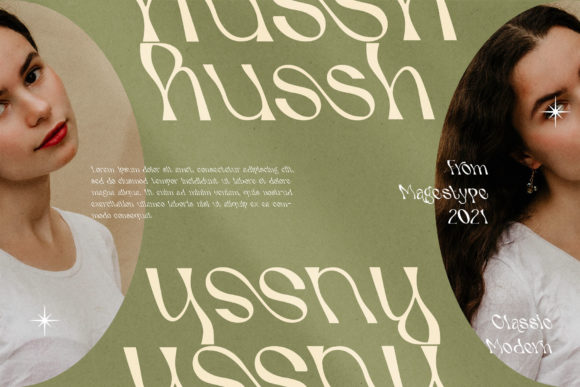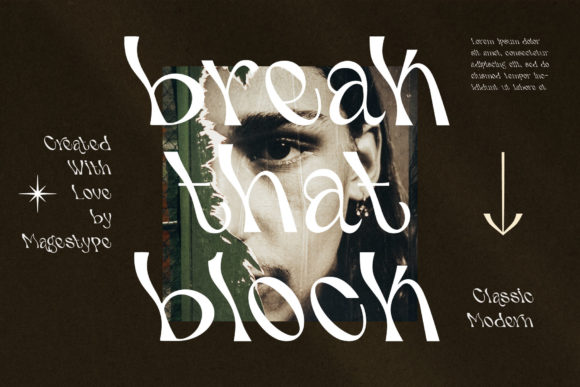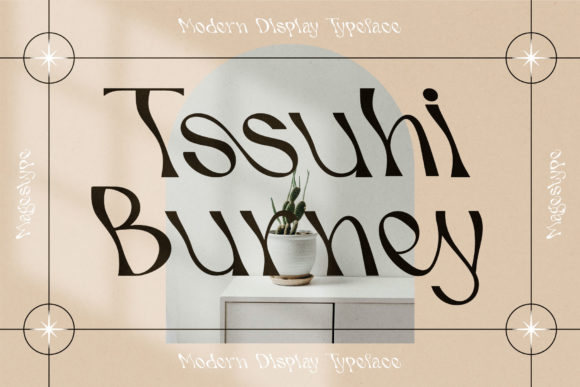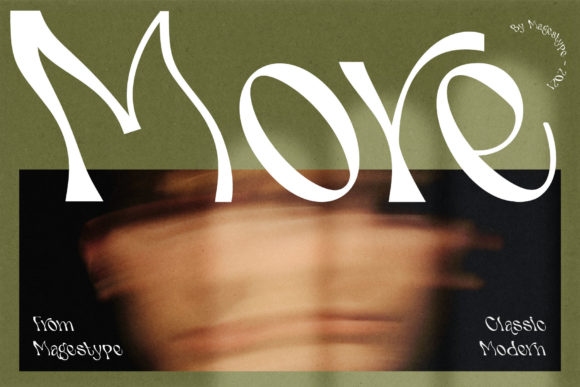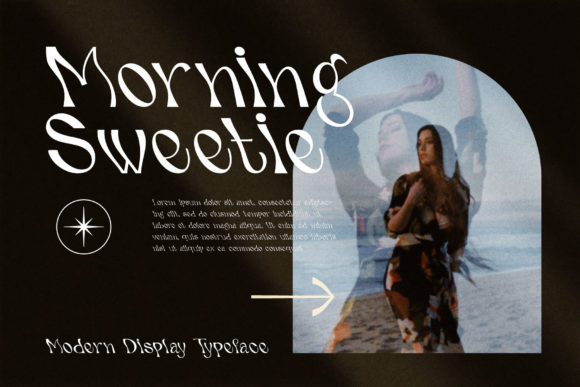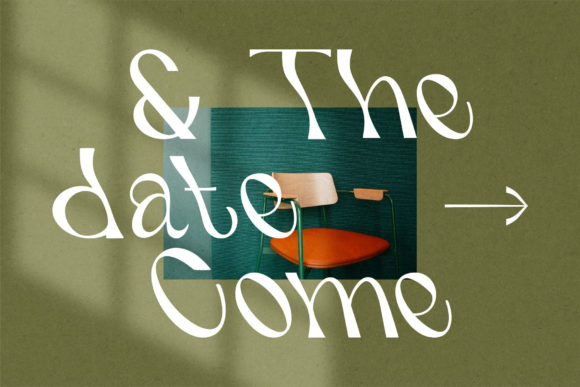
Introducing Heaney Font: Elevate Your Designs with Whimsy and Luxury
In the world of typography, fonts play a crucial role in conveying the tone and personality of a design. For designers and crafters looking to add a touch of elegance and playfulness to their creations, Heaney Font is an exceptional choice. This whimsical, luxurious display font is designed to enhance any project, making it a valuable asset to your font library.
The Heaney Font Advantage
Heaney Font stands out from the crowd with its unique blend of whimsy and sophistication. Its luxurious feel makes it perfect for high-end designs, while its playful undertones add a touch of personality. Whether you’re working on a branding project, packaging design, or digital content, Heaney Font is versatile enough to adapt to any topic or theme.
Key Features of Heaney Font
- Whimsical yet Luxurious: Heaney Font strikes the perfect balance between playfulness and elegance, making it suitable for a wide range of design applications.
- Display Font: Designed specifically for display purposes, Heaney Font is ideal for headlines, titles, and short texts where visual impact is crucial.
- Versatile: From fashion and beauty to lifestyle and technology, Heaney Font can enhance any design project with its unique charm.
- Easy to Read: Despite its decorative nature, Heaney Font remains clear and legible, ensuring your message is conveyed effectively.
Applications of Heaney Font
The versatility of Heaney Font makes it suitable for various design projects. Here are some of the ways you can utilize this beautiful font:
- Branding and Logos: Create memorable brand identities with Heaney Font, perfect for businesses looking to stand out.
- Digital Content: Enhance your website headers, social media graphics, and digital ads with a touch of luxury and whimsy.
- Packaging Design: Add a high-end feel to your product packaging, making it more appealing to potential customers.
- Print Materials: From brochures and flyers to posters and business cards, Heaney Font can elevate your print designs.
Tips for Using Heaney Font Effectively
To maximize the impact of Heaney Font, consider the following tips:
- Pair with Neutrals: Combine Heaney Font with neutral fonts for body text to create a balanced design.
- Experiment with Colors: Take advantage of Heaney Font’s luxurious feel by pairing it with metallic colors or gradients.
- Use for Headlines: Reserve Heaney Font for headlines and titles to draw attention and add personality to your designs.
Heaney Font is a valuable addition to any designer’s or crafter’s font library. Its unique blend of whimsy and luxury makes it perfect for a wide range of design applications. By incorporating Heaney Font into your projects, you can add a touch of elegance and playfulness, elevating your designs to new heights. Whether you’re working on branding, digital content, packaging, or print materials, Heaney Font is sure to enhance your creations and make them stand out.